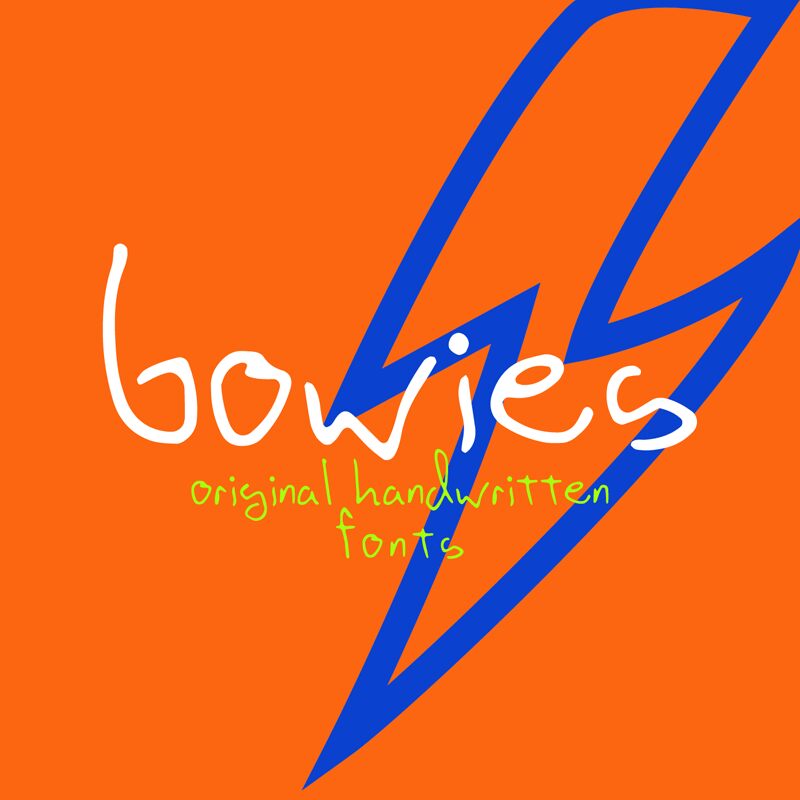
Bowies font by Bowies Fonts is a stylish handwritten typography with a unique appearance. As a free font presenting diverse characters, it is suitable for crafting abstract and contemporary text designs. The font gives a sense of authenticity that is hard to mimic with other similar tools.
Bowies would make a good addition to several design projects. Among them we mention signature logos, social media posts, official documents, invites, greeting cards, quotes, digital advertisers, campaigns, all printed materials, and several more.